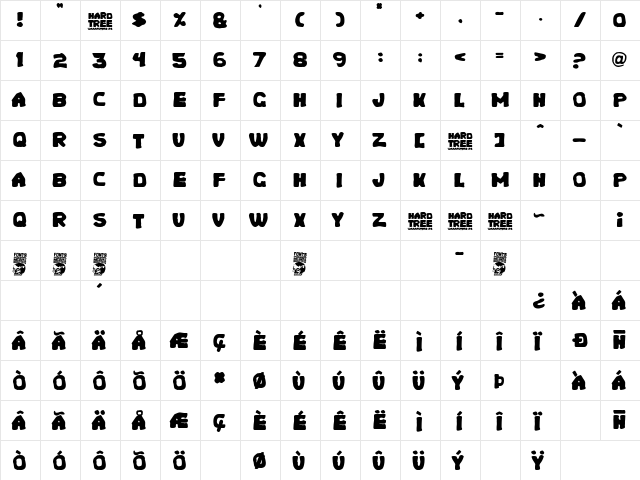
Hard Tree Regular
| Designer | Woodcutter Manero |
Design Context for Hard Tree Typeface
Hard Tree is a composed and adaptable typeface that performs quietly and consistently across a wide range of design contexts.